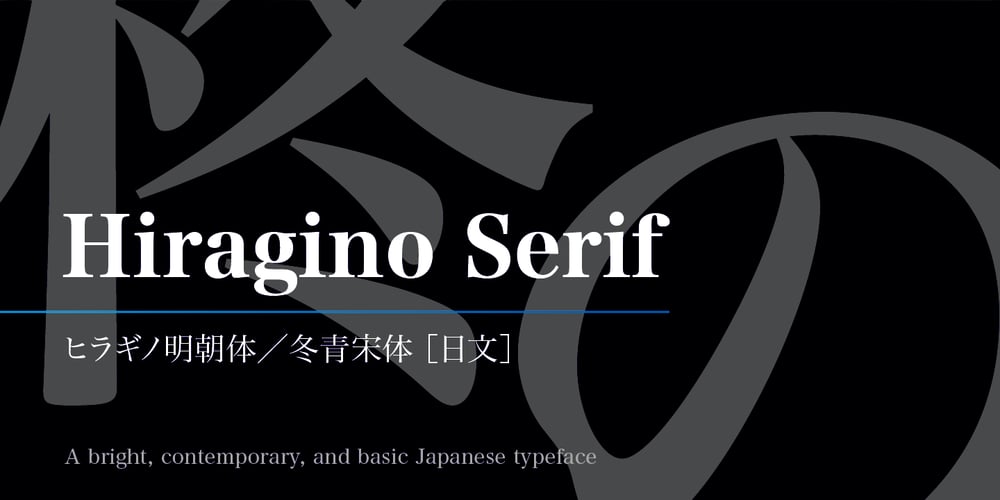
Hiragino Serif Font Family was designed by published by SCREEN Graphic Solutions. Hiragino Serif contains 2 styles and family package options. Hiragino Serif (Mincho) is a font adapted for the digital age. It was designed to permit finely detailed tuning that allows the sizes of both kanji and kana to be adjusted for greatest visibility. It also broadly satisfies the needs of modern graphic design in advertising, posters, pamphlets, magazines, and other such uses. The font makes the counters comfortably wide while gracefully raising the text’s center of balance, ensuring that the typeset characters will be smooth and well-defined. It gives each line a modern impression thanks to a judicious balance of light and shade and draws out a vivid readability that makes it possible to comfortable push forward with one’s reading. Latin alphabet and numbers have all been originally designed so that the weights of typeface and the flow of the baseline between Japanese and Latin characters are extremely consistent. Of particular note, vertically formatted text that mixes both Japanese and Latin characters can be beautifully rendered using only this typeface. Thanks to the use of authentic and sophisticated basic design , it creates a different atmosphere by combination of optional unique kana typefaces.